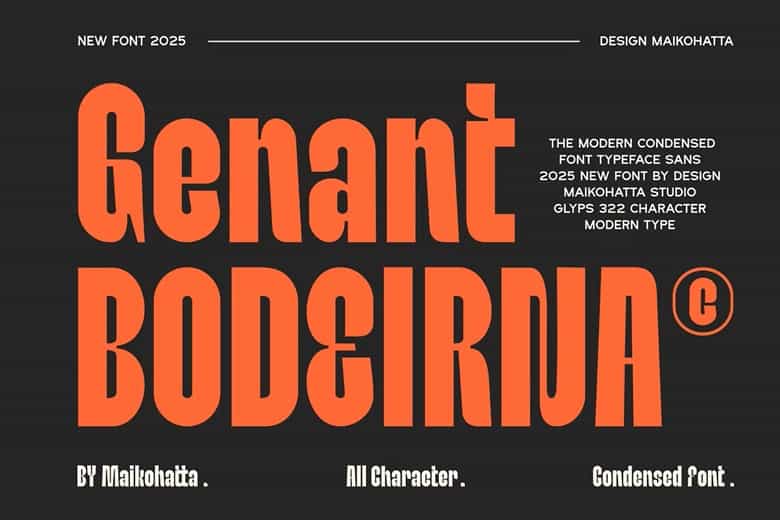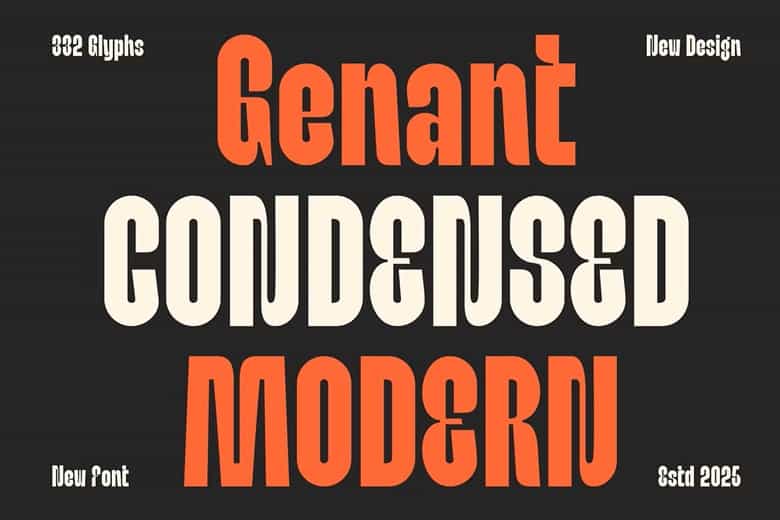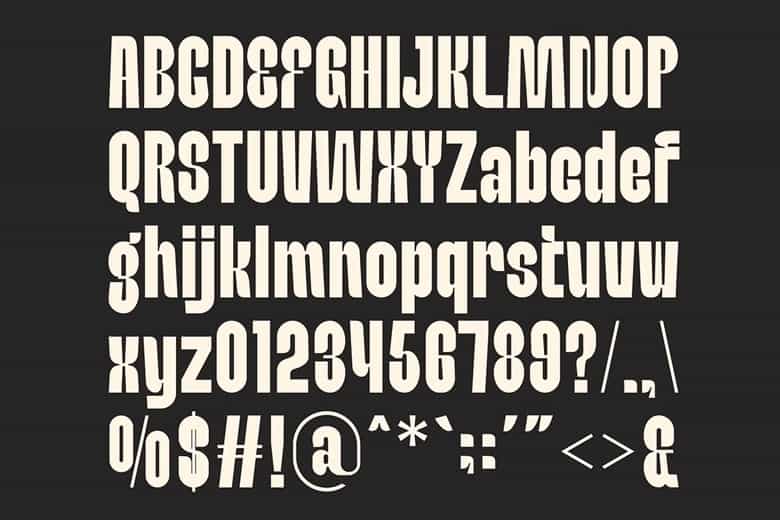
Genant Bodeirna is a beautifully designed modern condensed sans serif typeface. Because of its slim design and strong presence, it’s suitable for advertising, newspaper layouts, branding materials and anything using dramatic groupings of text.